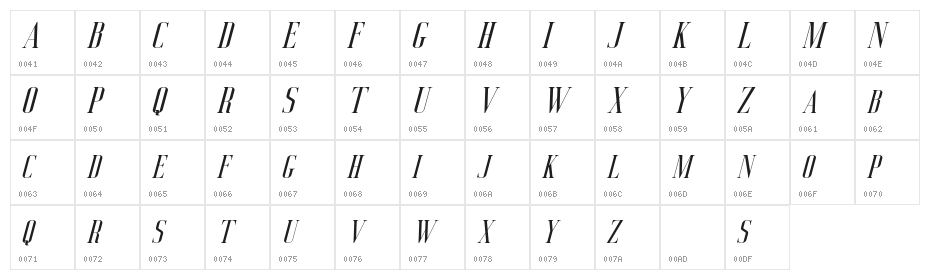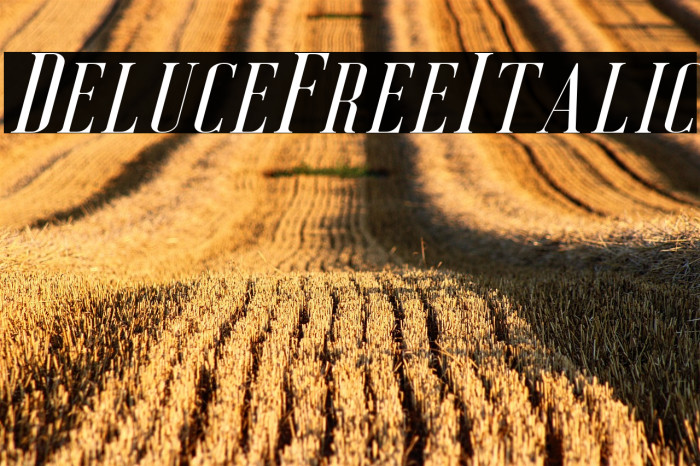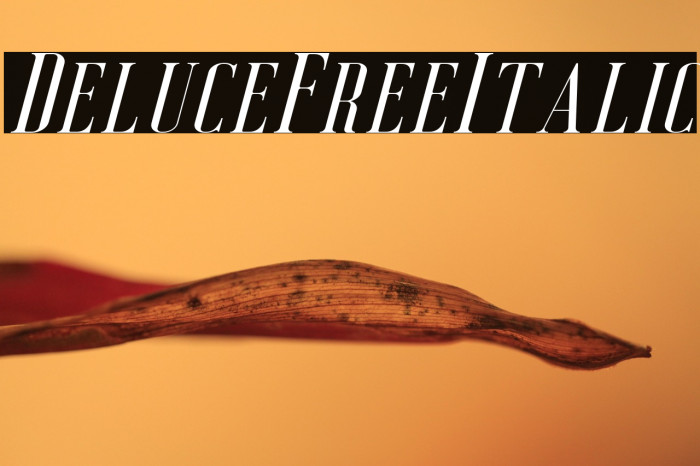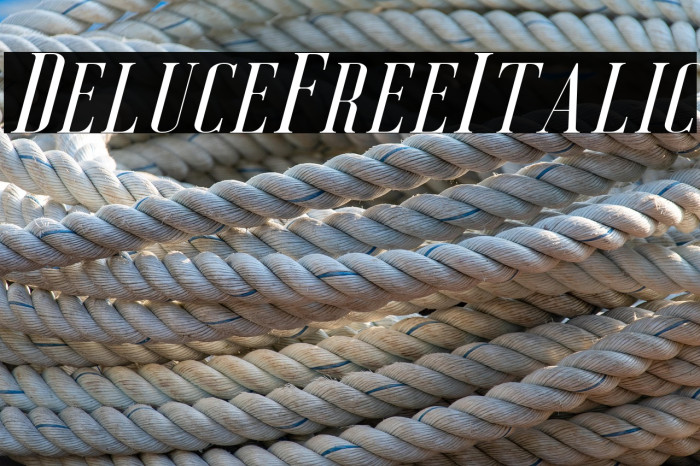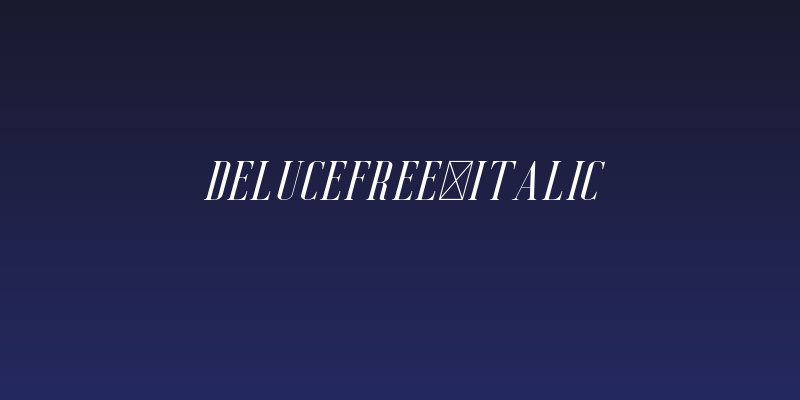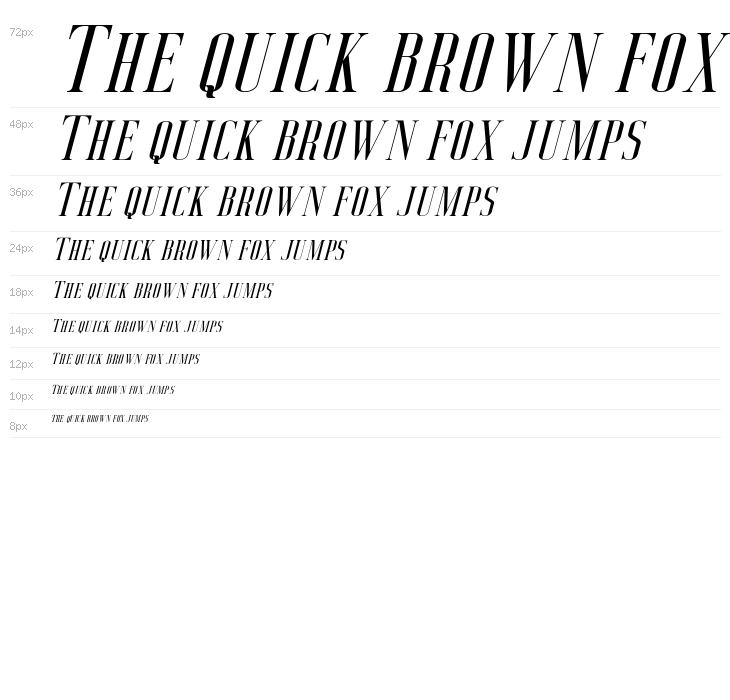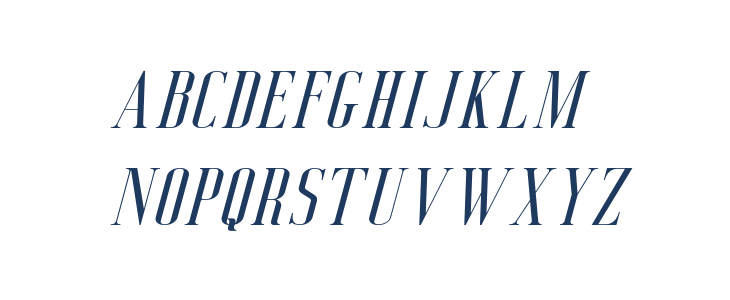
DeluceFree-Italic Font
DeluceFree-Italic Description
This font features a distinct italic style with elongated, elegant letterforms that convey a sense of sophistication and flair. The characters are sharply defined with a high contrast between thick and thin strokes, giving it a dynamic and stylish appearance. The slanted design adds a sense of movement and fluidity, making it ideal for creating an impactful visual presence. The uppercase letters are particularly striking, with their tall, narrow shapes and sharp serifs, while the lowercase letters maintain a consistent style that complements the overall aesthetic. The numbers and special characters are designed to match the elegance and style of the alphabet, ensuring a cohesive look across all text elements.